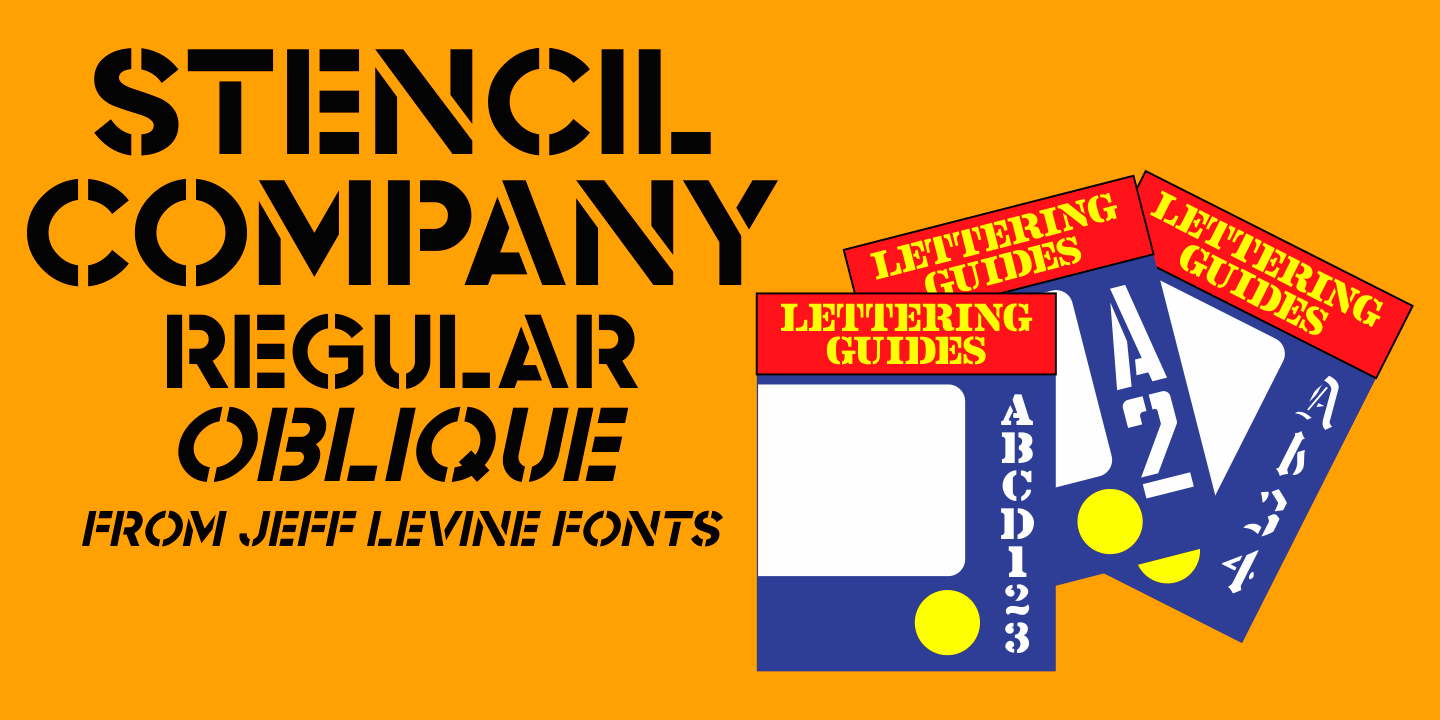
Stencil Company JNL Font Free Download is a bold, stencil-style typeface that brings a rugged, industrial vibe to your designs. Its distinctive cut-out characters make it ideal for signage, posters, branding, and creative projects where a strong visual impact is needed.
This font’s unique stencil design balances functionality with style, ensuring readability while adding an edgy, contemporary flair. Whether you’re designing for urban environments, military themes, or modern branding, Stencil Company JNL Font Free Download stands out with confidence.
Make your designs bold and unmistakable with Stencil Company JNL Font Free Download. When you want your message to hit hard and stay memorable, this font is your go-to.